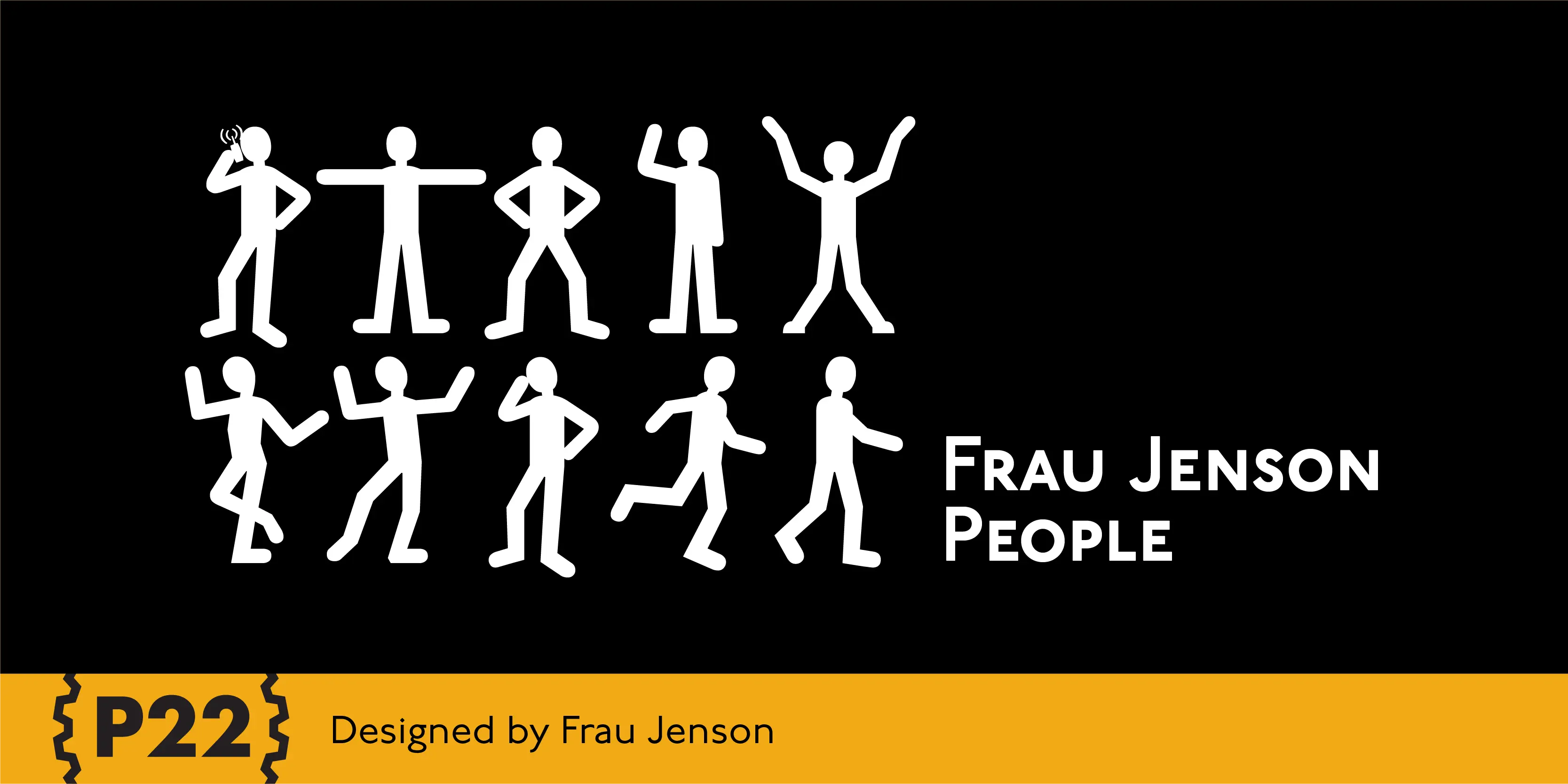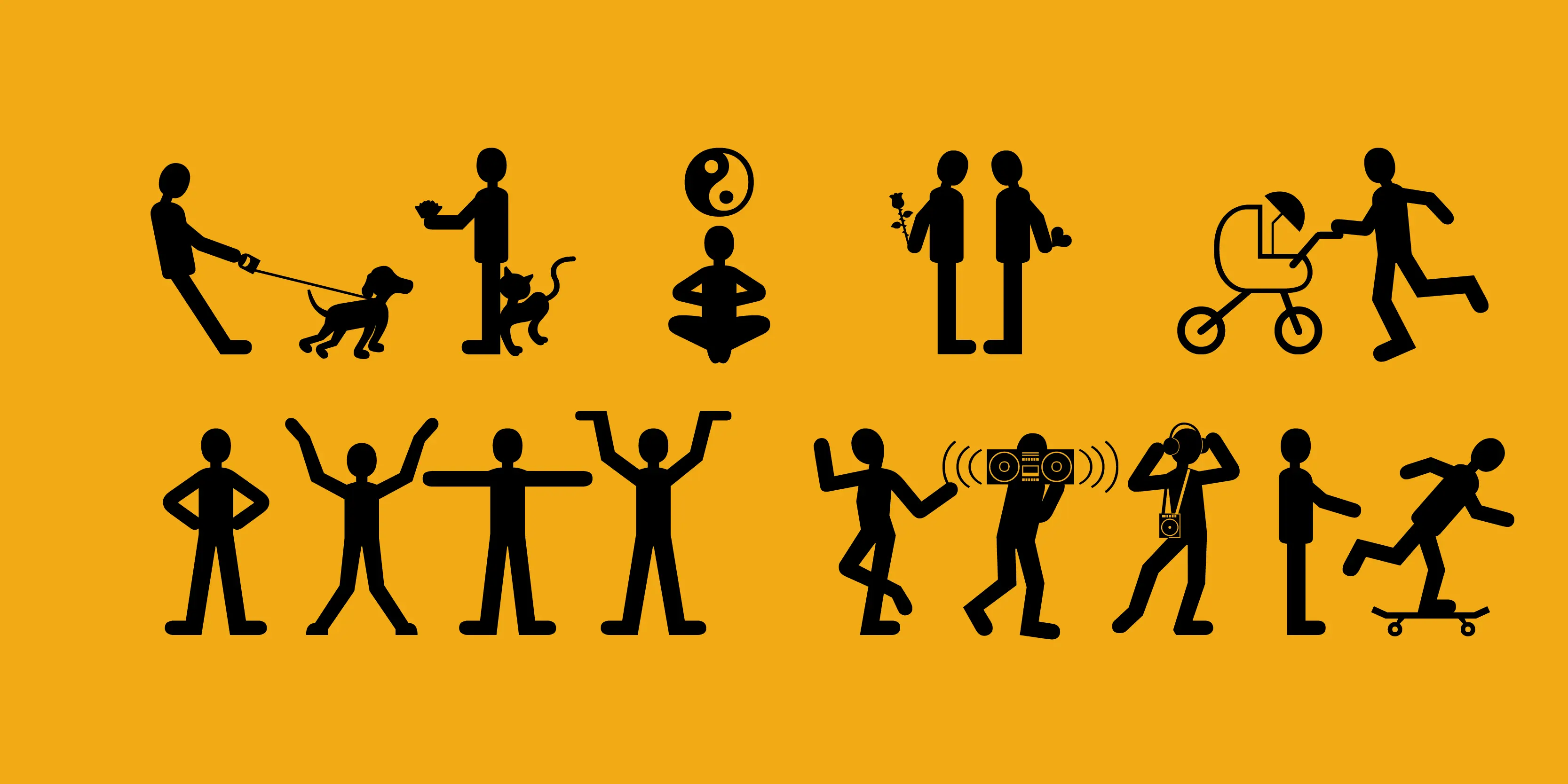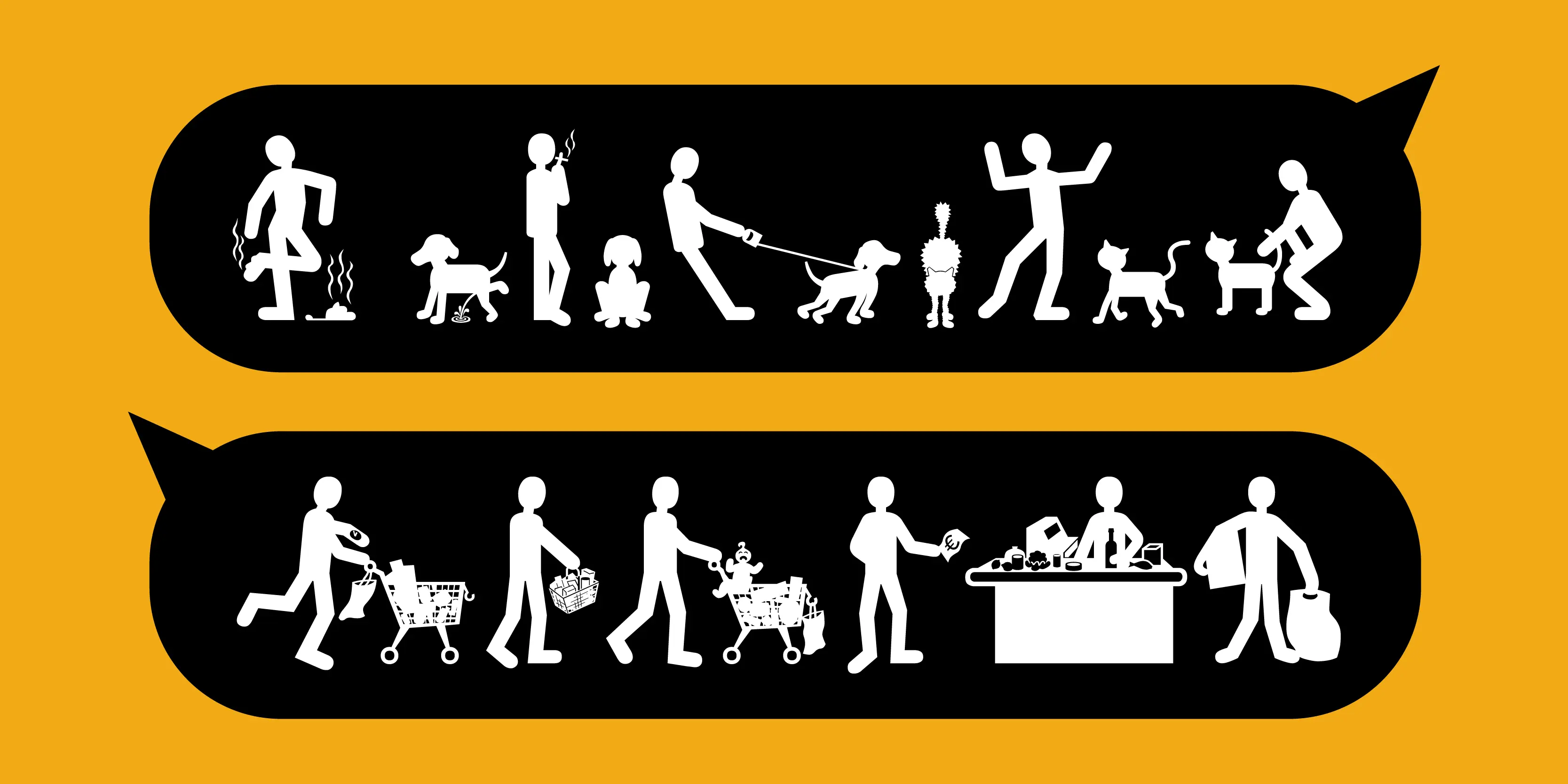
Frau Jenson People Font
Frau Jenson People
A collection of over 70 pictograms featuring people doing all sorts of everyday things — some ordinary, some surprising. Surrounding signs for allowing or not allowing these activities are also included.